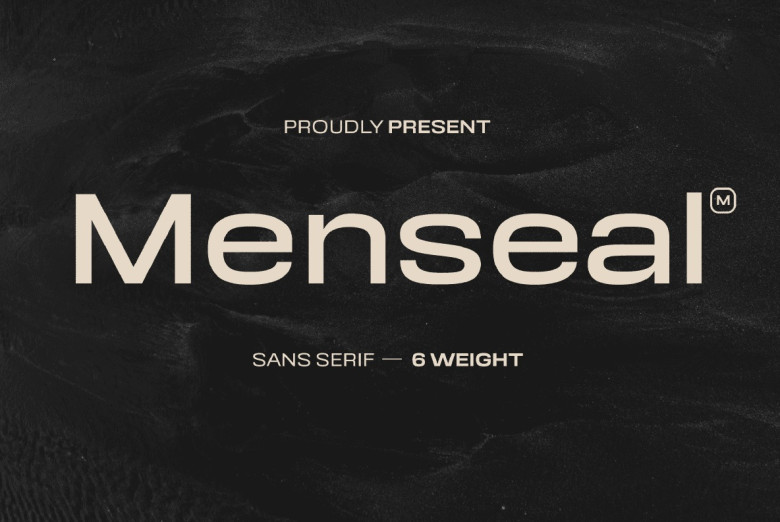
Menseal Font
Menseal is a sans-serif typeface with a perfect balance of audacious future-forward shapes and semi-square appearance. It is suitable for any attire and sportswear items and capitalize on between chopped boundary lines and edge angles.
It is particularly well-matched for your brand when you require something more accurate and provident in its decision-making. Similarly, the uniform and geometric letters create a feeling for the modern times and stay presentable by filling the void of the right words in the message on broadcasts or printed adverts.
It offers your design a fashionable look and a sense of feeling when you want our fashion company to exude sentimentality. Moreover, the use of standard font designs in Menseal is enough to shape an appropriate image that your branded message will swiftly grab the target audience’s attention.
Menseal Sans Serif Font Family